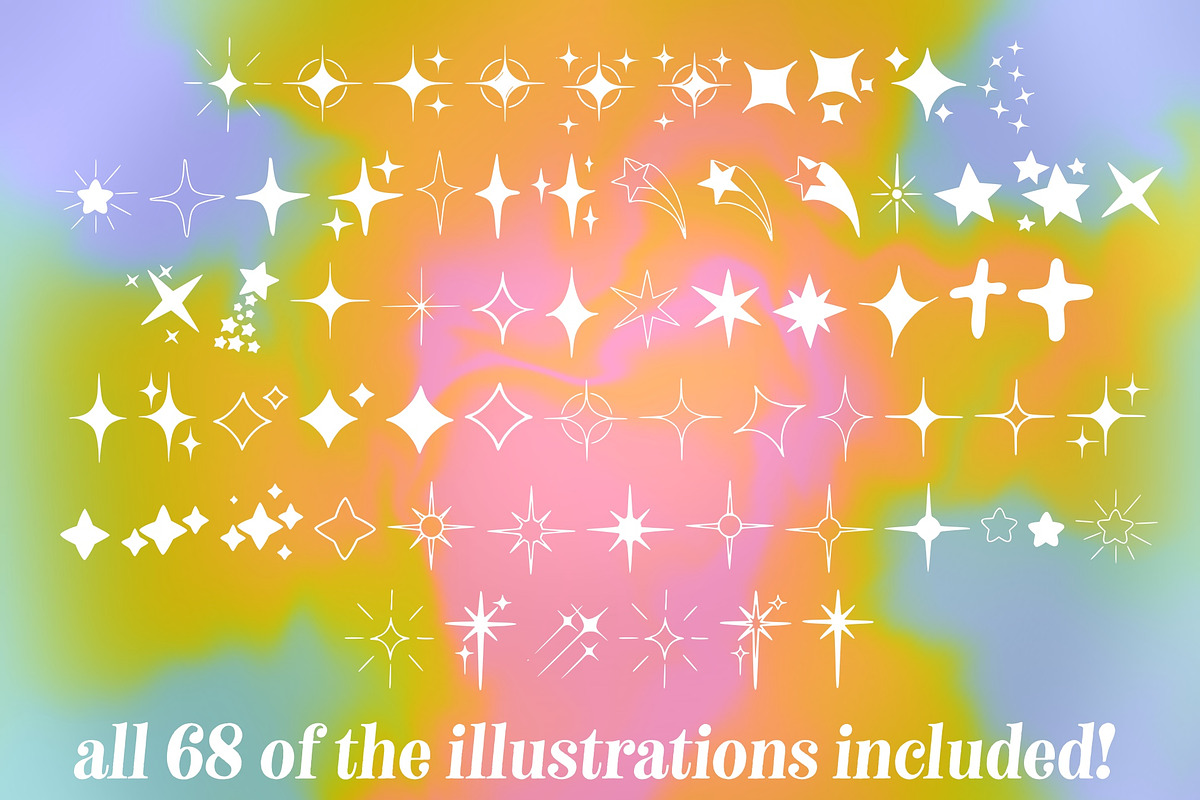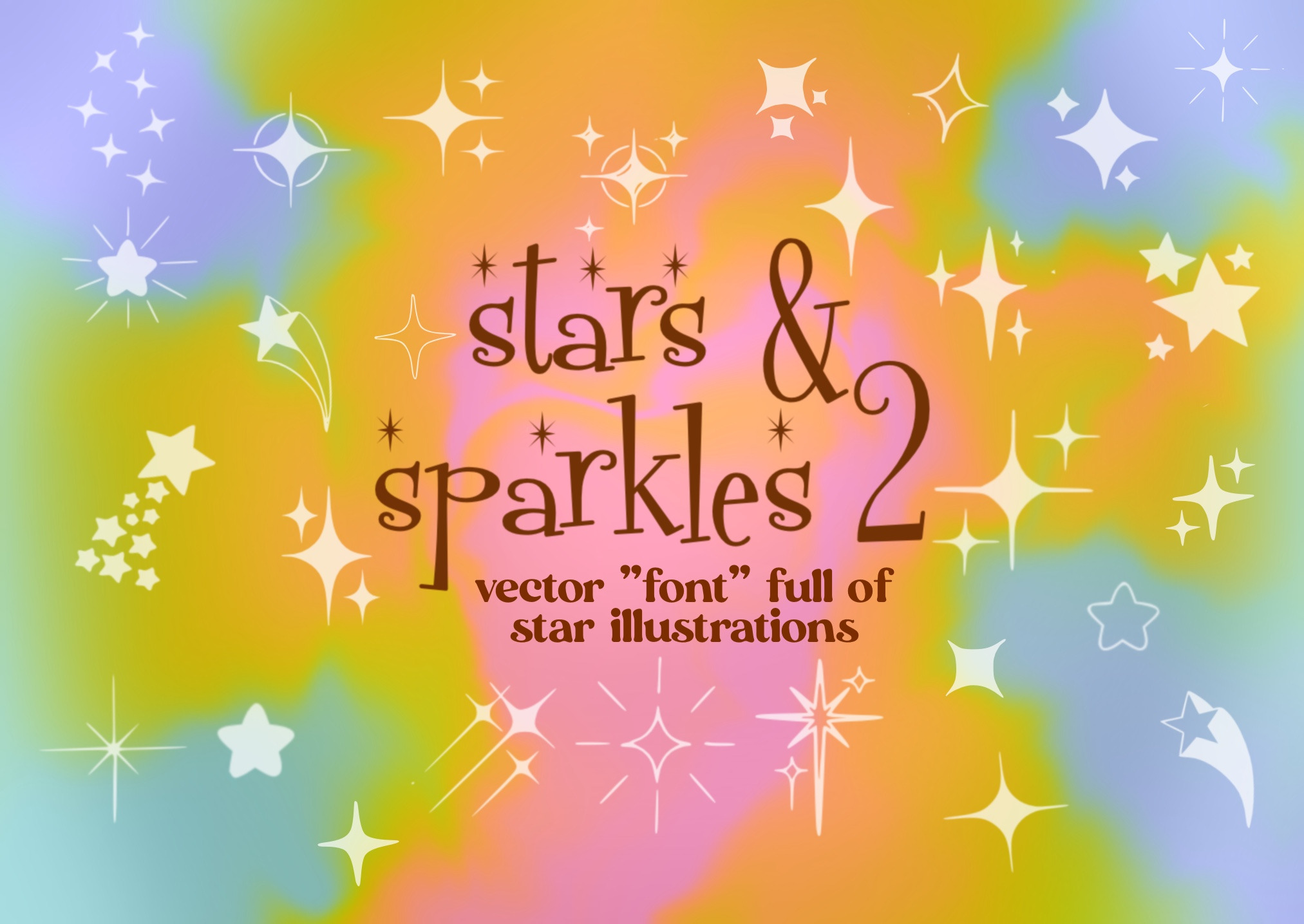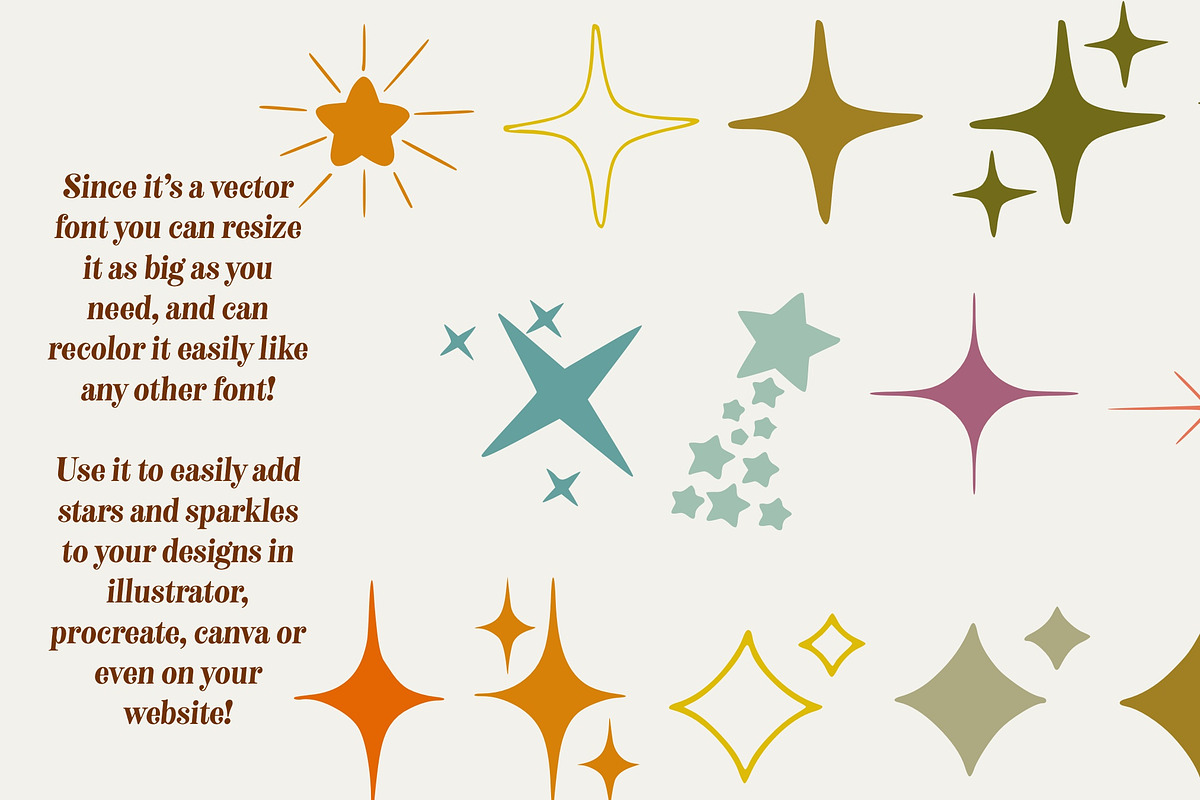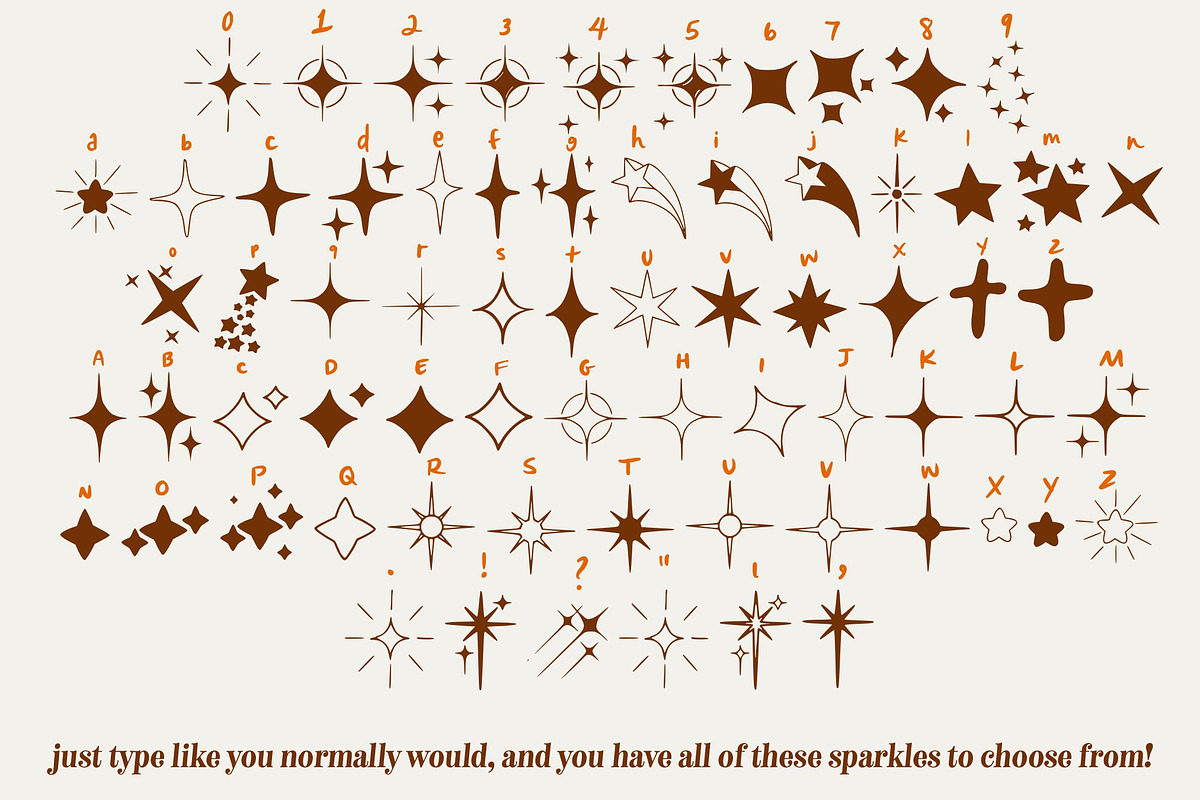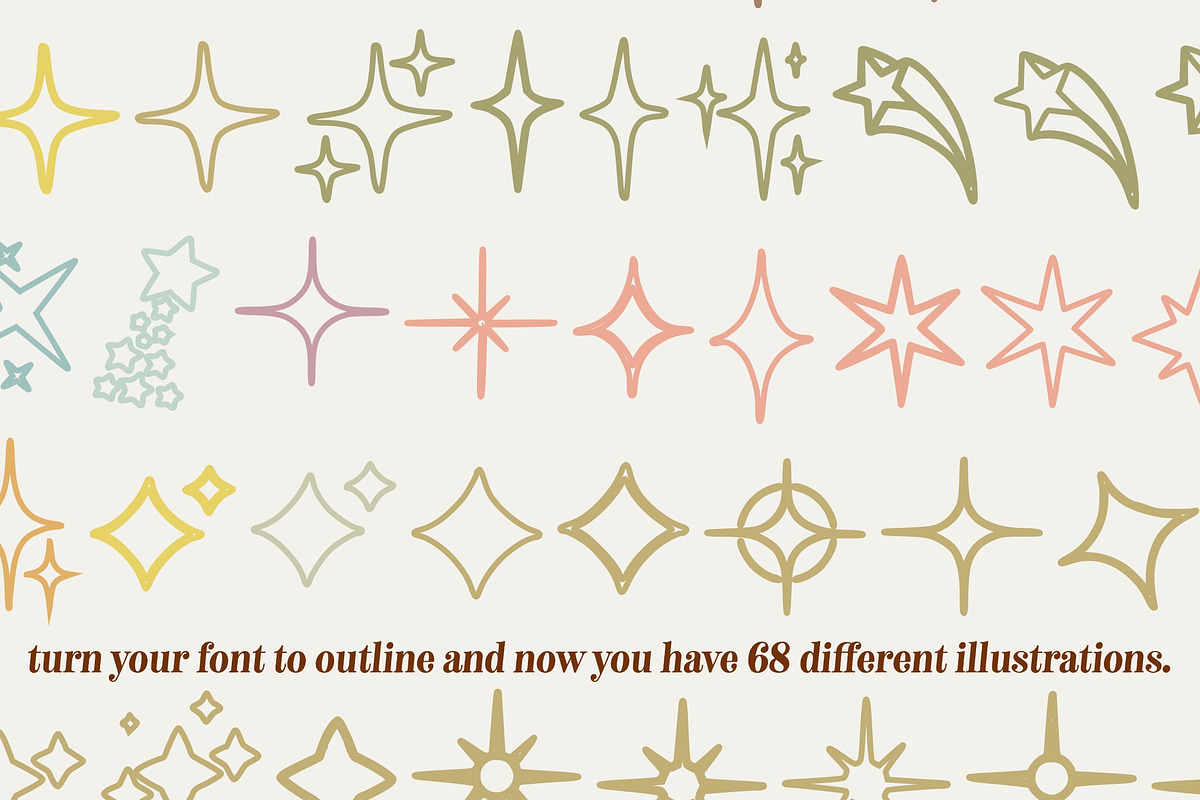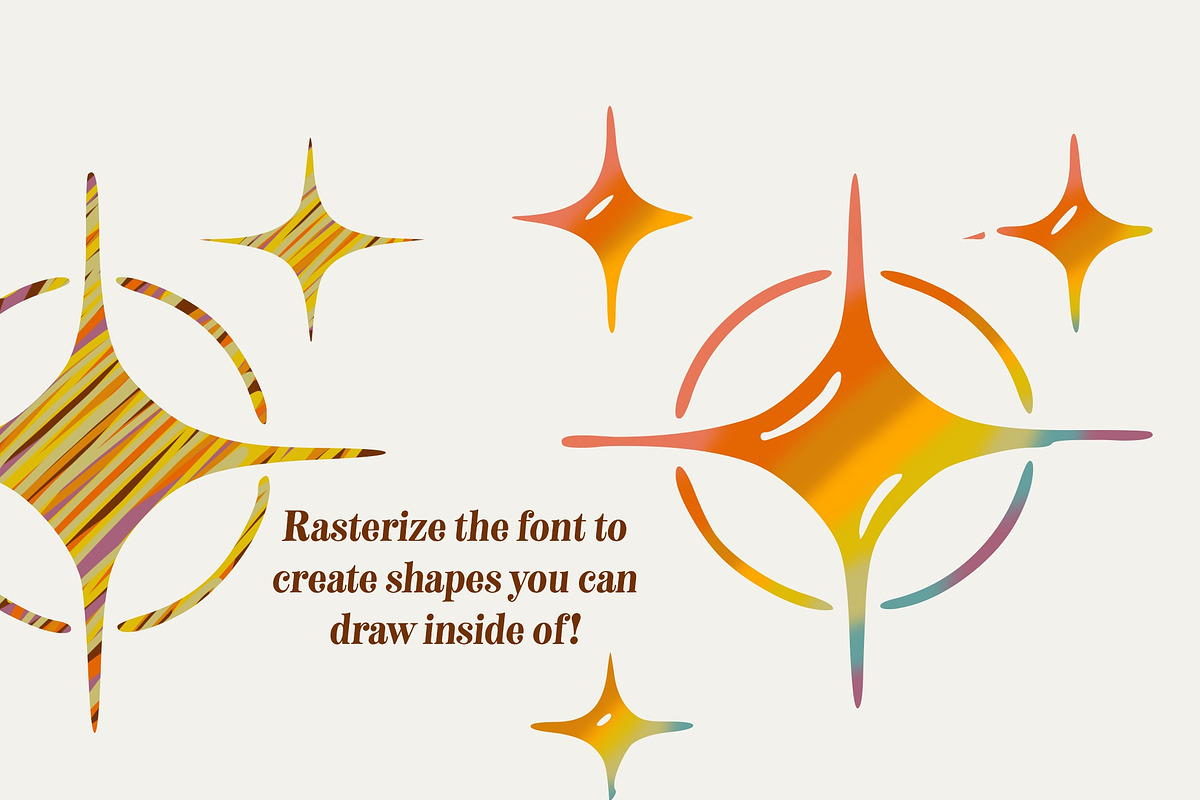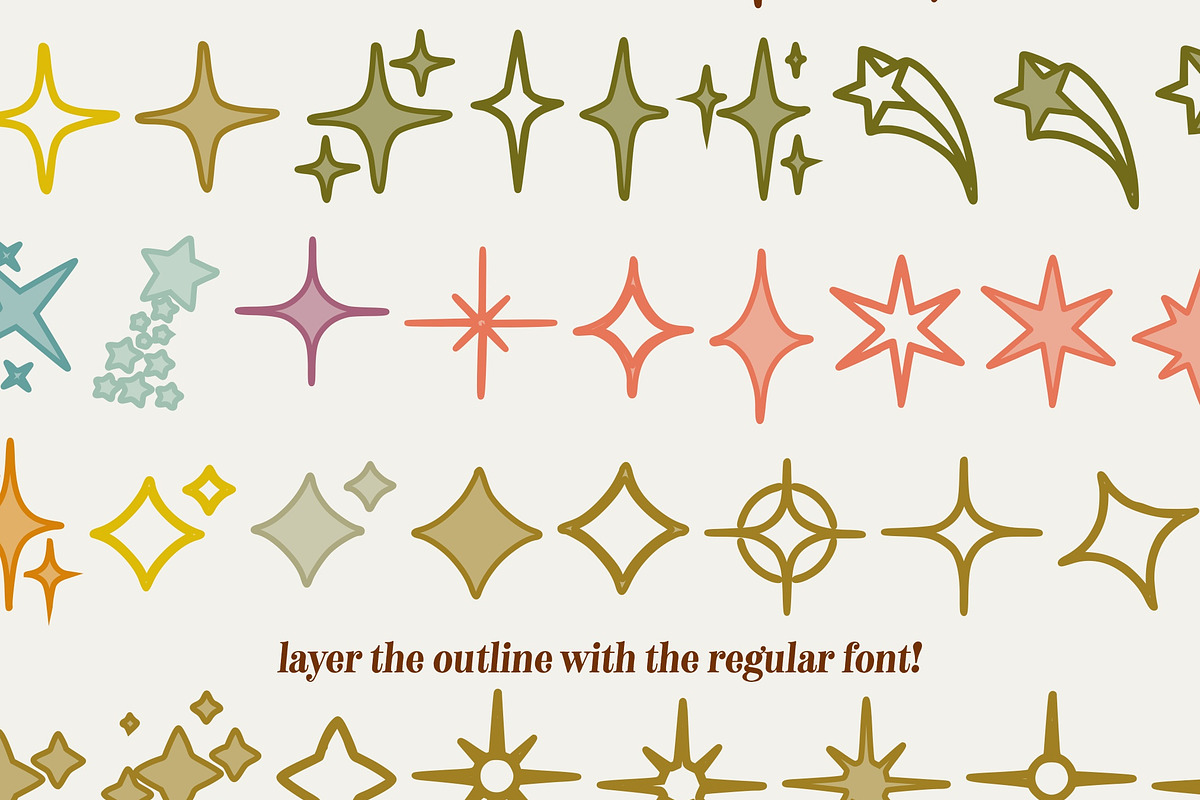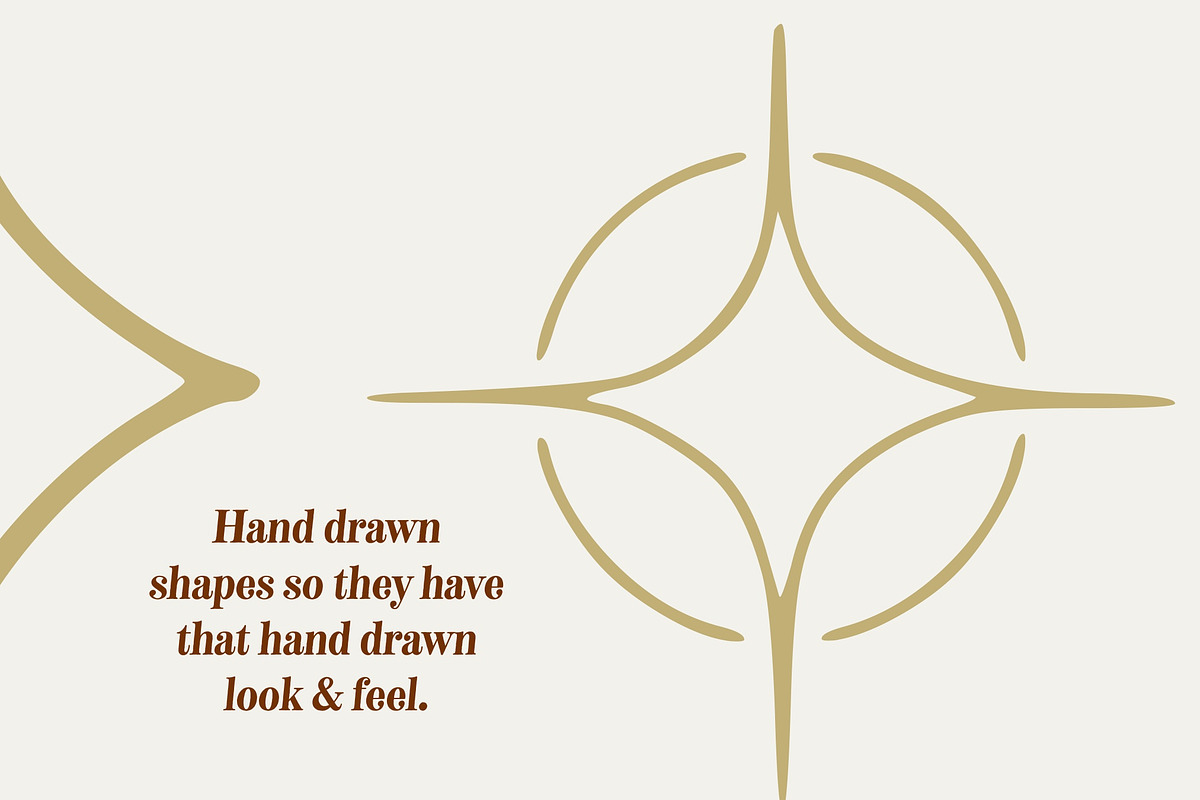
Stars & Sparkles 2 - symbol font
Stars and sparkles illustration font number two! This is the follow up to our original stars and sparkles font! This is a vector font, but instead of each letter representing that letter, they represent a different star or sparkle illustration! There are 68 different shapes, and you can type them out like a regular font, size them as big or small as you need them, recolor them and make them your own! Turning the icons into a font is the perfect way to make sure you’re able to use them in any software, and make sure they keep their shape and are able to be recolored. It’s a super easy way to quickly add those sparkles that can sometimes be a pain to draw, but really make your work pop and fill in those negative spaces so perfectly!